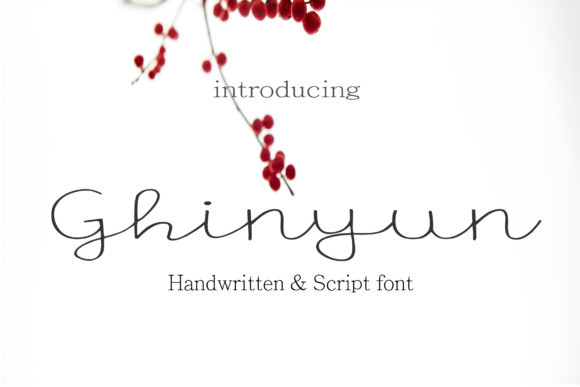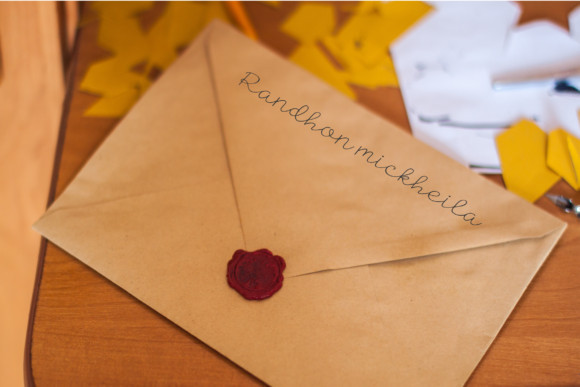
Ghinyun Font
Ghinyun is a round and cute script font. Get inspired by its authentic feel and use it to create gorgeous wedding invitations, beautiful stationary art, eye-catching social media posts, and cute greeting cards.